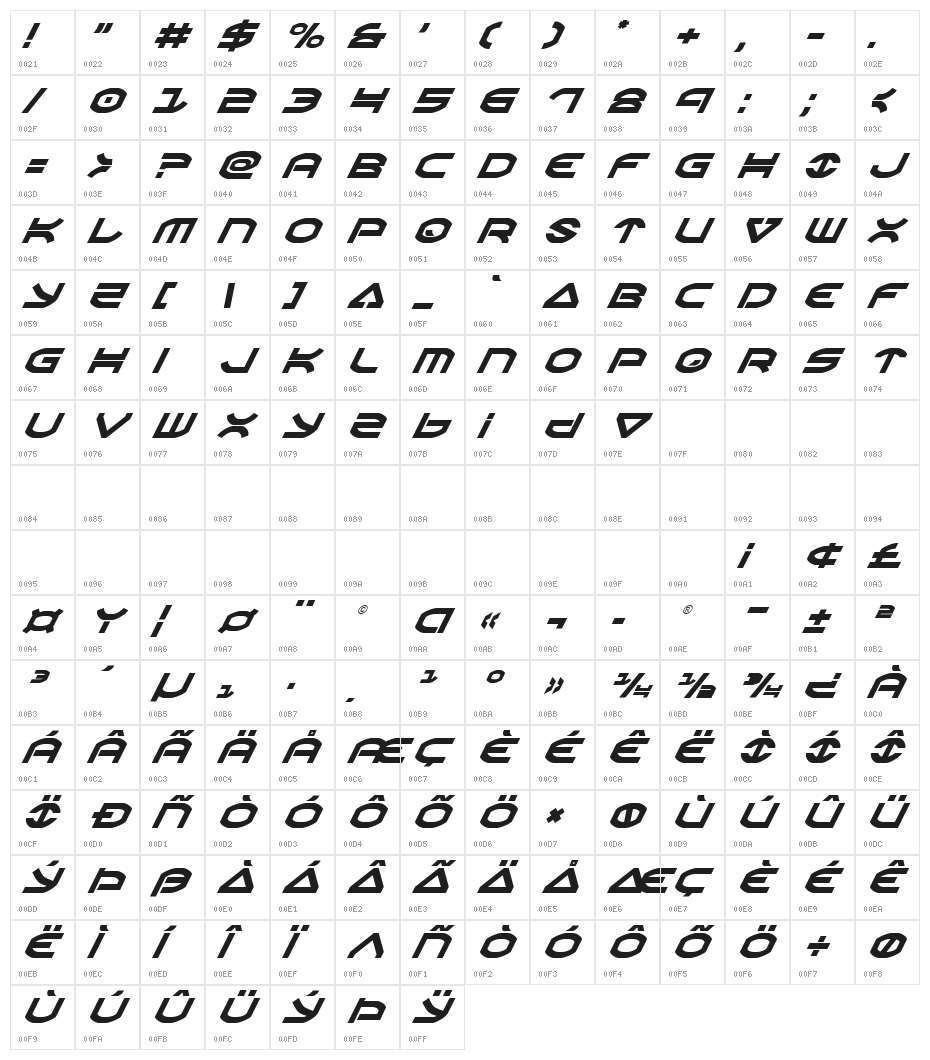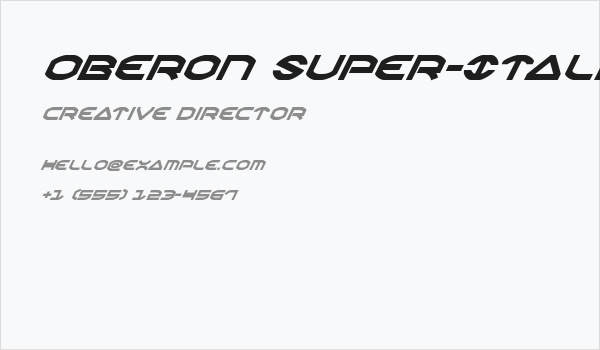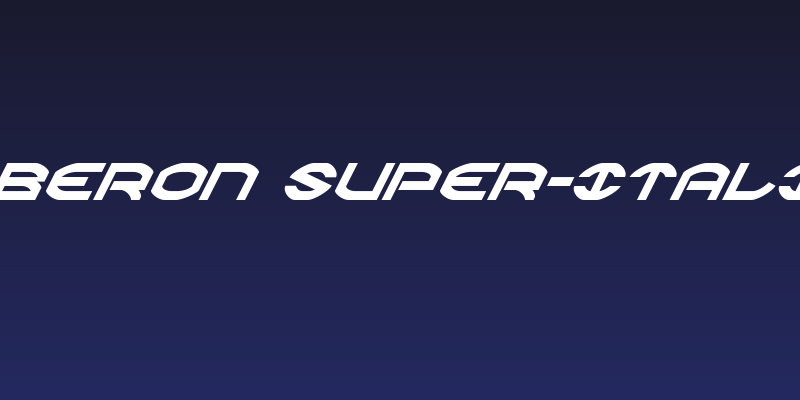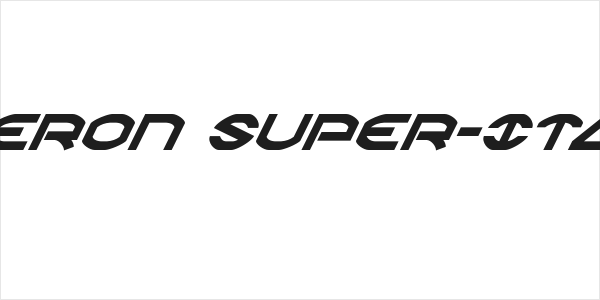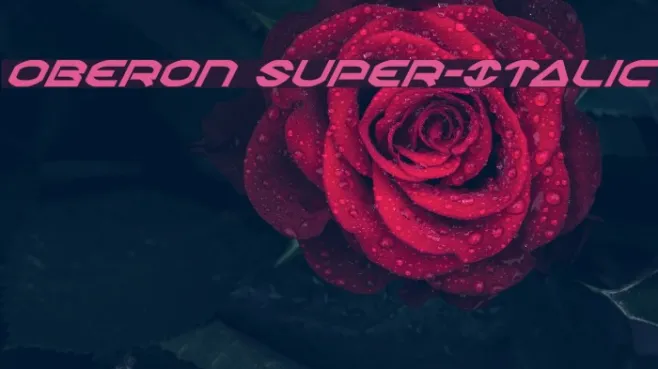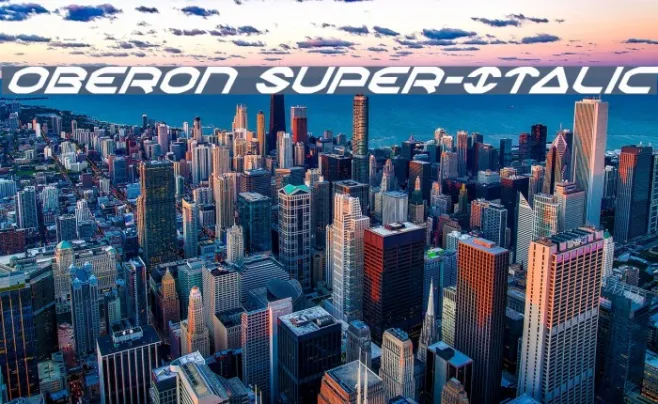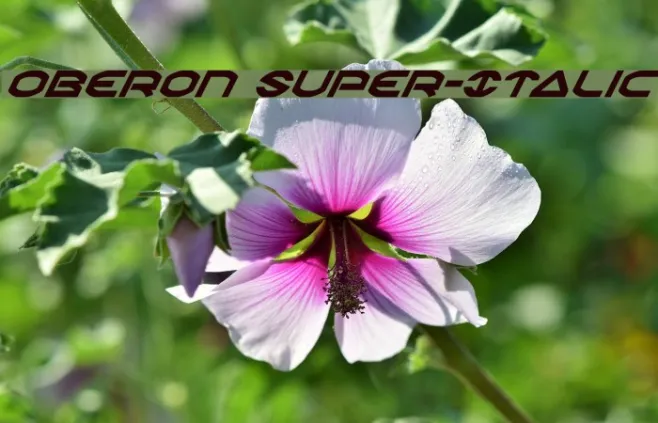
Oberon Super-Italic Font
Oberon Super-Italic Description
This font features a dynamic and futuristic style with a strong italic slant, giving it a sense of motion and speed. The characters are bold and angular, with sharp edges and unique geometric shapes that create a striking visual impact. The uppercase and lowercase letters maintain a consistent design, while the numerals and special characters complement the overall aesthetic. The font's design is highly stylized, making it suitable for projects that require a modern and edgy look.
| Proposed Projects | Ideal for sci-fi themed designs, technology branding, video game titles, and dynamic posters. |